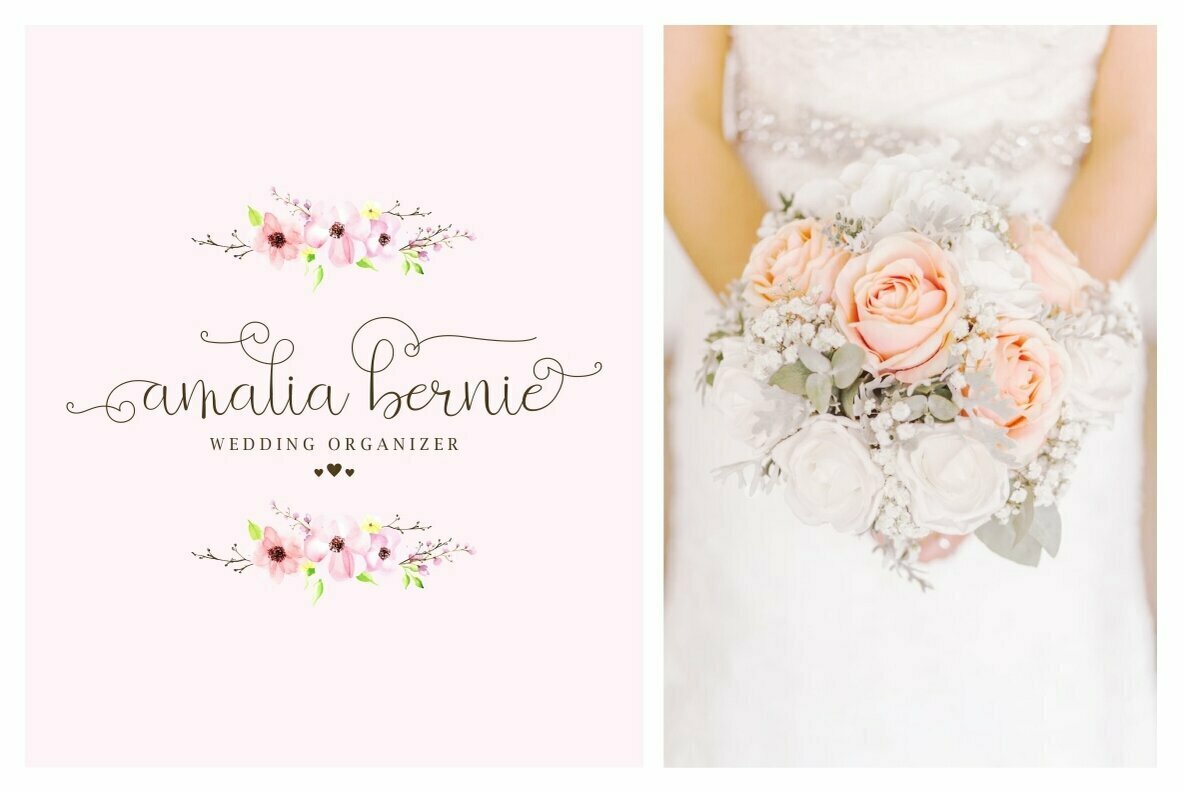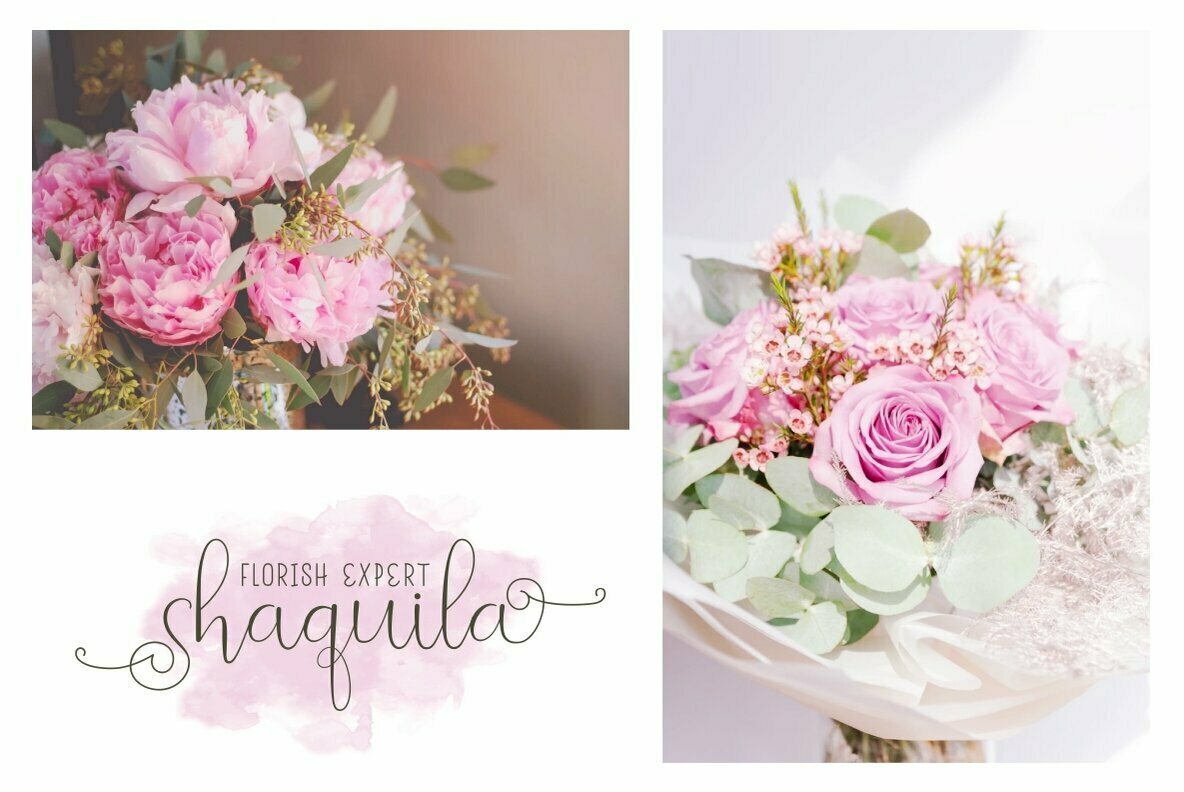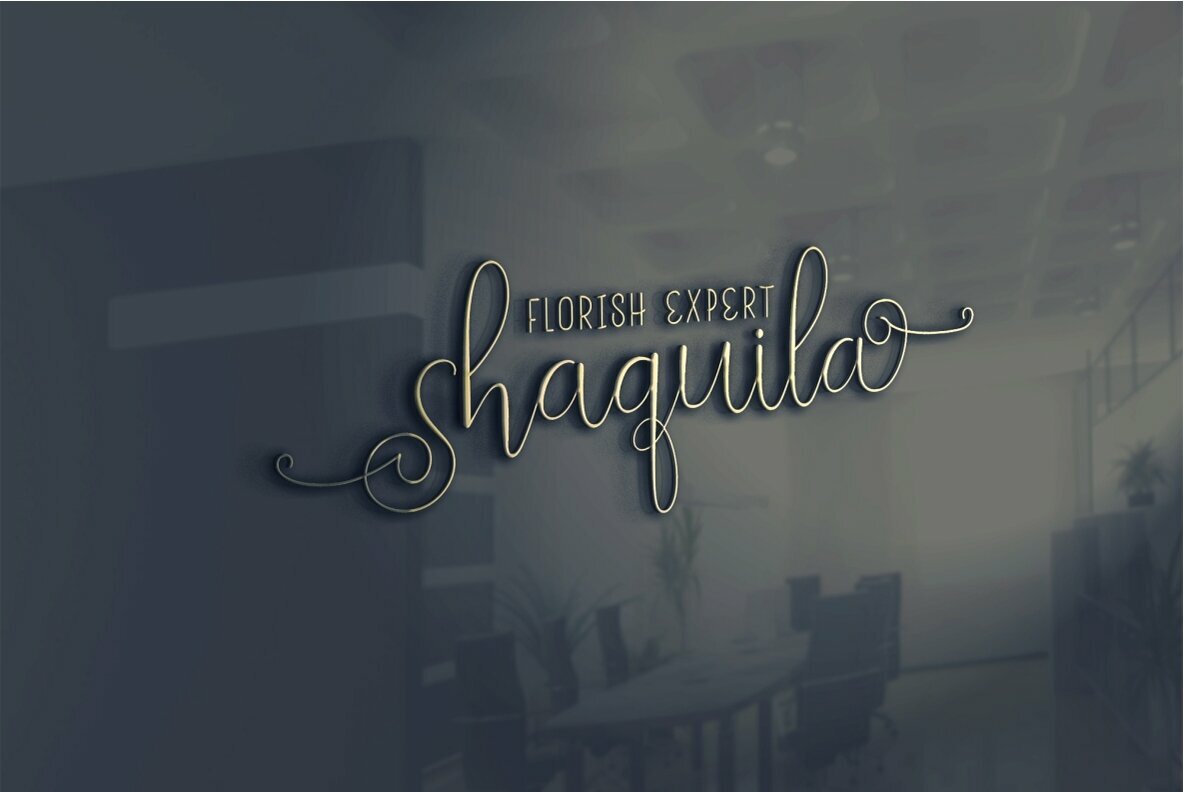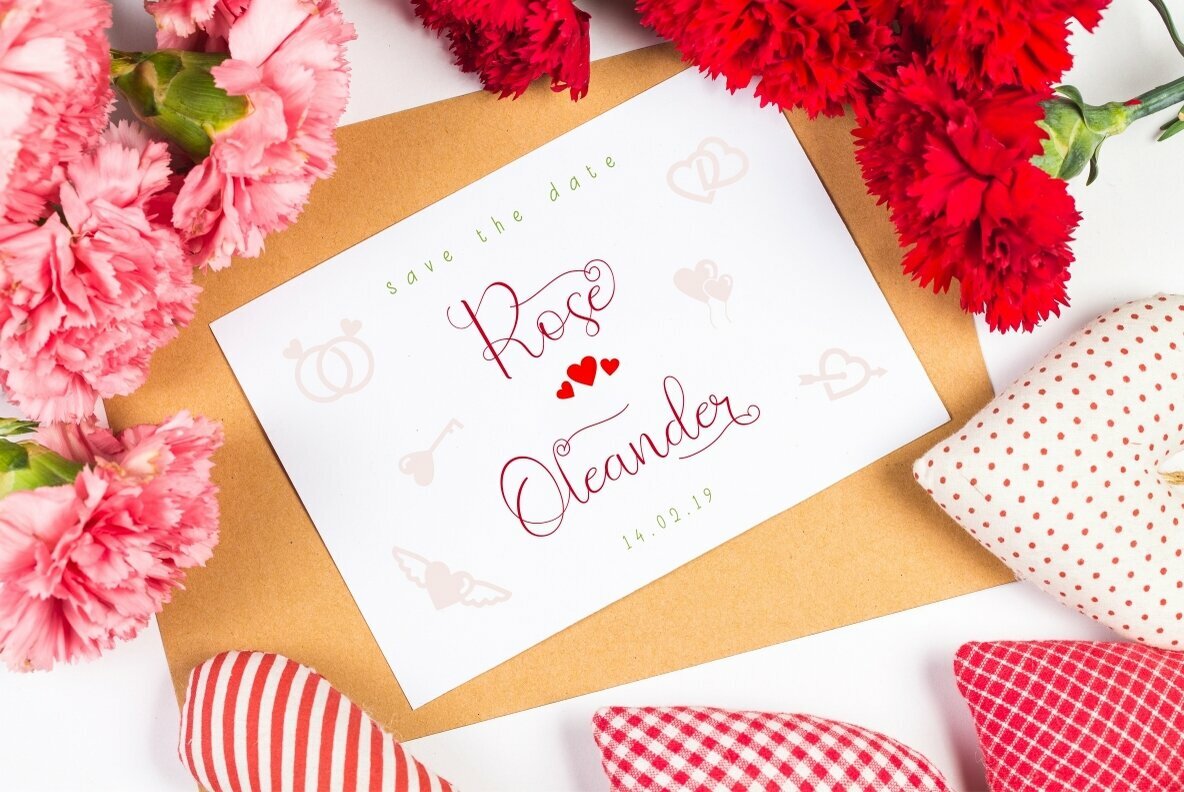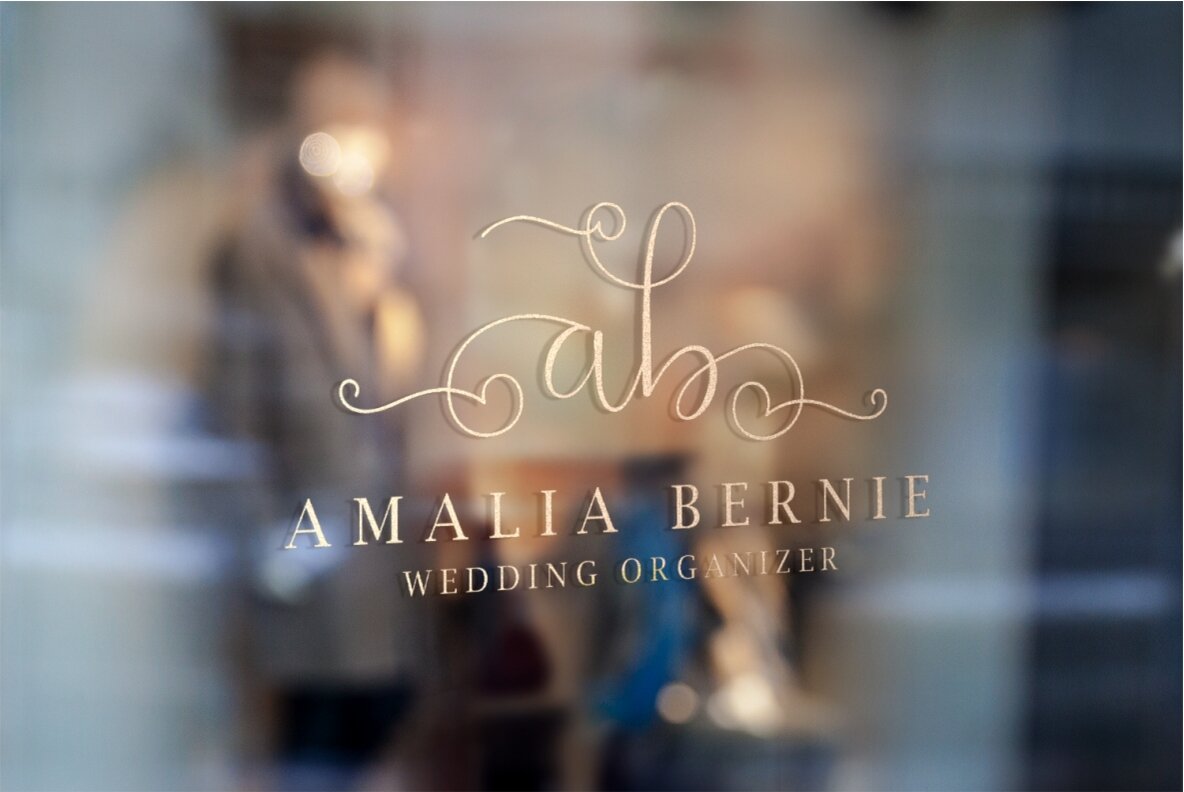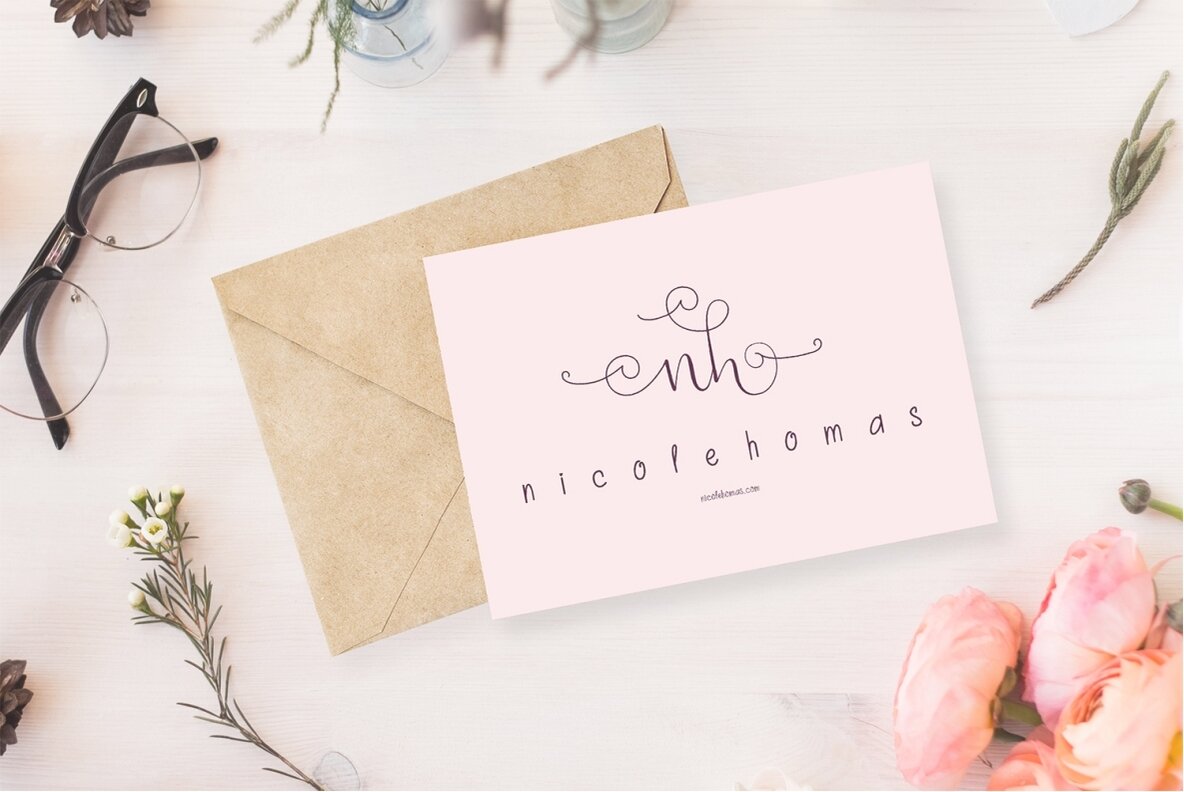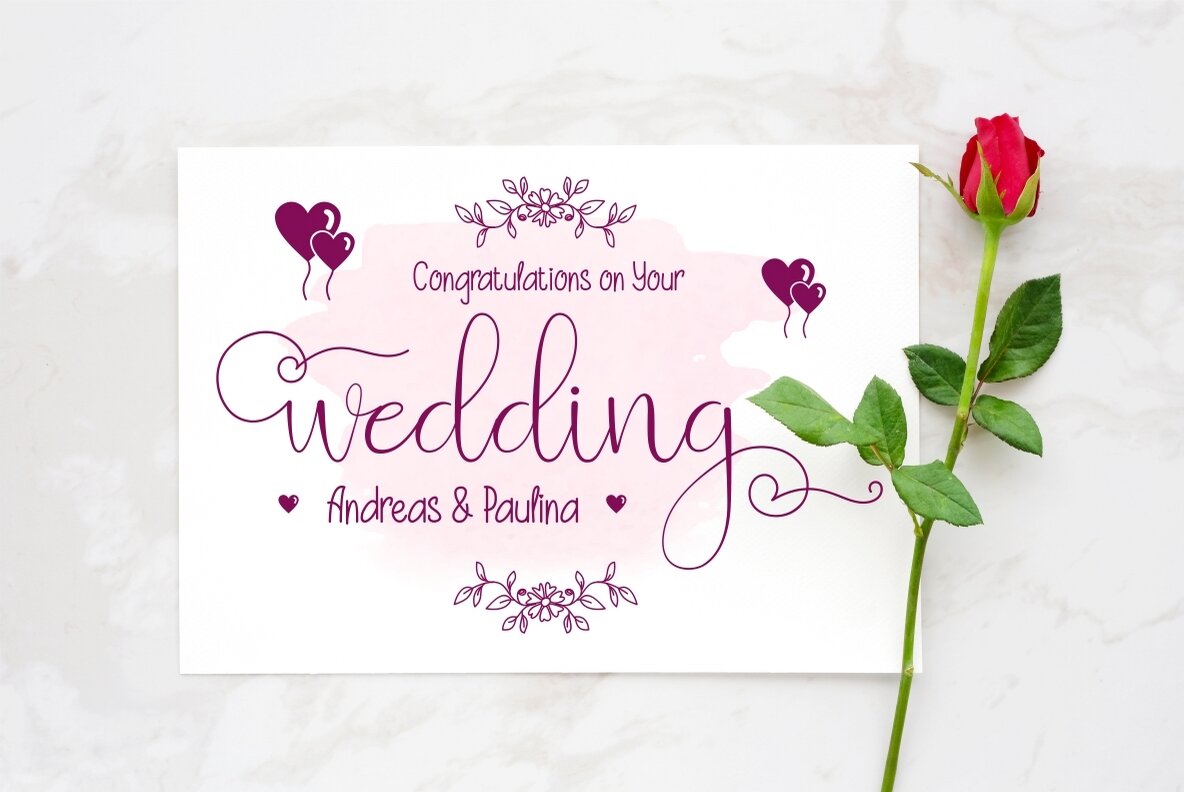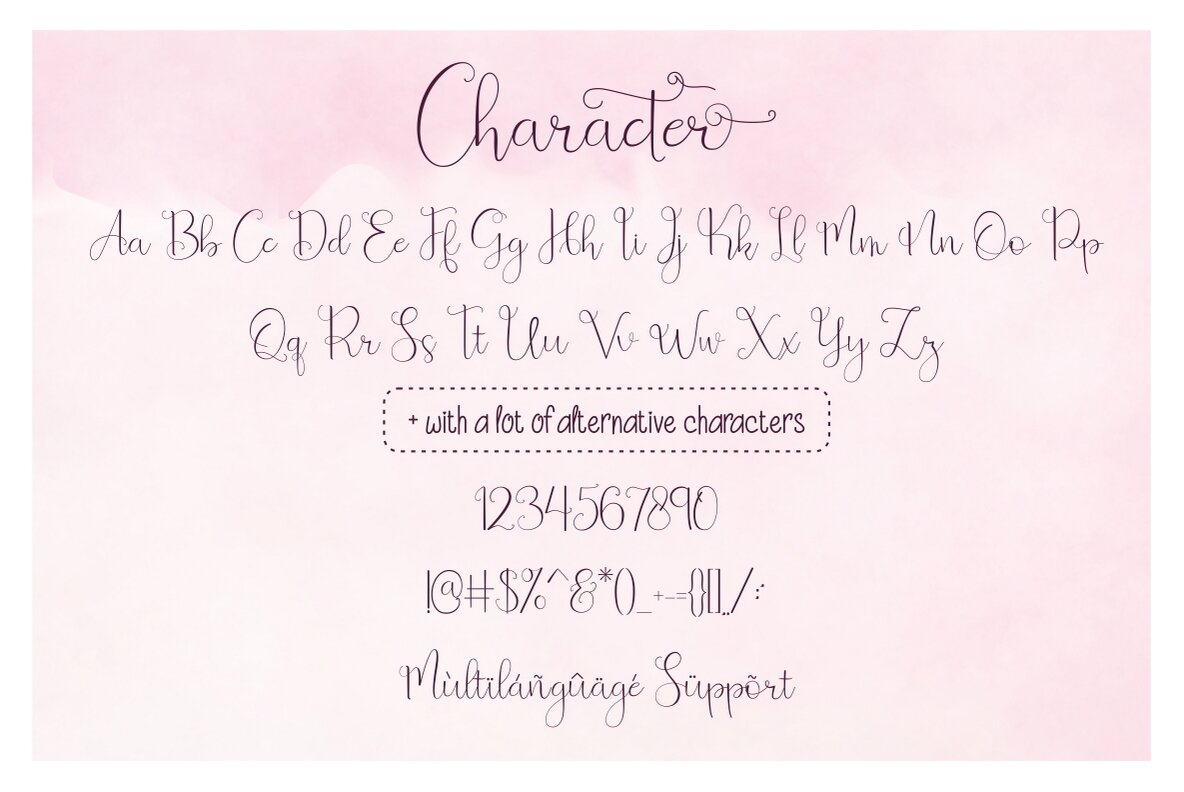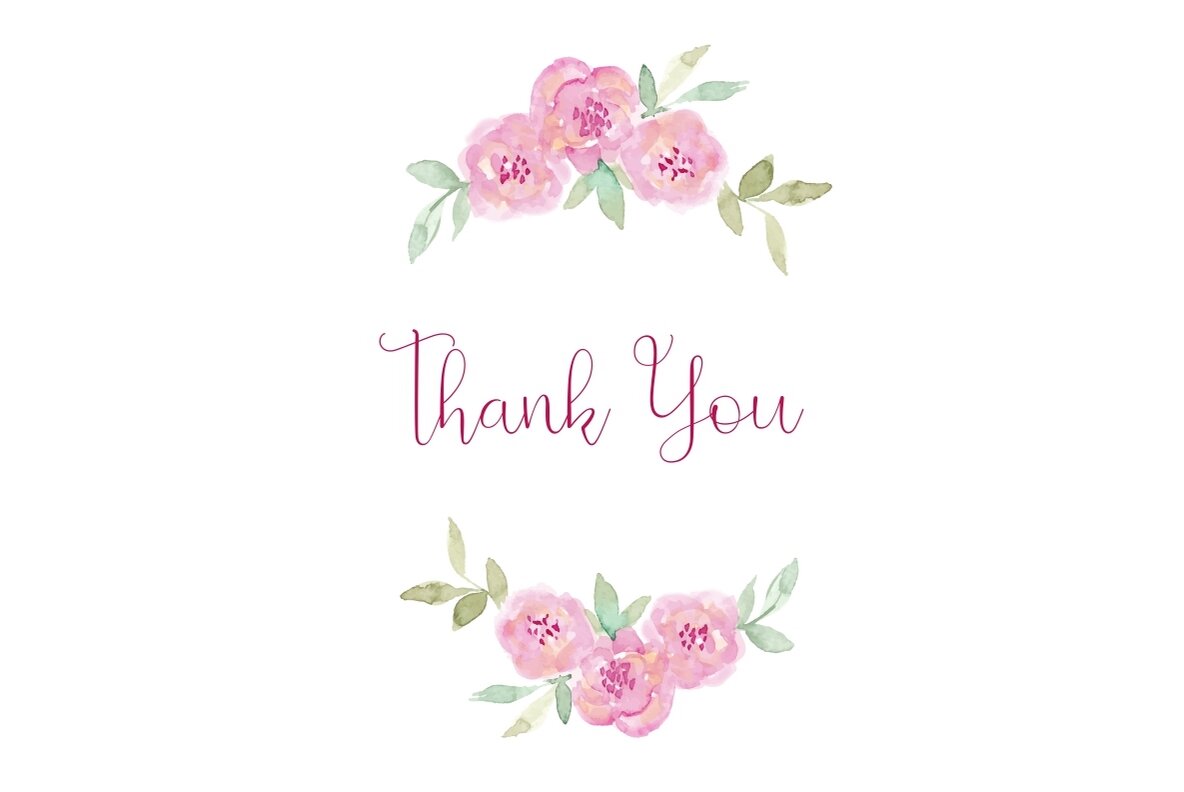
Beauty And Love Font
Beauty And Love Sans
Beauty And Love Dingbat
Beauty And Love Script
This collection by Putra Novembria Candra Kusuma captivates with its contemporary flair and delightful design elements. Featuring three distinct fonts—Beauty and Love script, sans, and heart dingbat—each offers a unique charm that perfectly complements the others. These typefaces are ideal for adding a feminine and playful touch to a variety of projects. These fonts synergize beautifully to help craft distinctive branding, letterhead designs, wedding invitations, quotes, and more. Embrace their character to elevate your projects effortlessly and add a touch of whimsy to your creative expressions.Beauty and Love: A Trio of Modern Typeface Gems
Versatile Font Variants